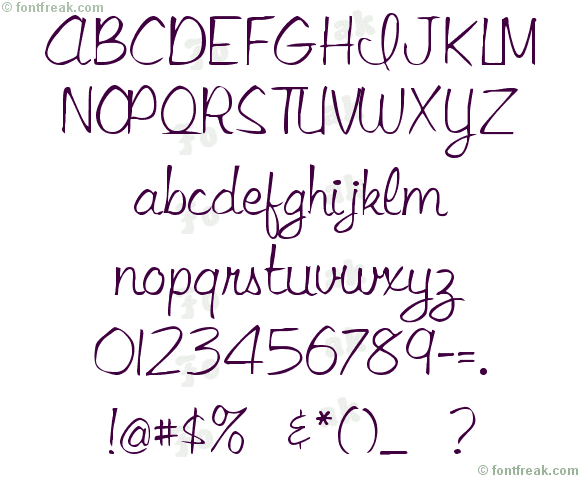
LibbyScript
About Libby Script
Libby Script, designed by Sam Wang, is a beautifully crafted script font that exudes elegance and sophistication. This shareware typeface stands out with its flowing curves and refined strokes, making it an ideal choice for projects that require a touch of grace. The font features a medium stroke weight, which provides a balanced contrast that enhances its readability while maintaining a decorative flair. The spacing is thoughtfully designed to ensure legibility, allowing each letter to breathe and interact harmoniously with its neighbors, creating a seamless reading experience.
Libby Script is perfect for a variety of creative applications. It shines in wedding invitations, where its romantic and whimsical character adds charm to the special occasion. Additionally, it works wonderfully for movie posters, lending an artistic touch that draws attention and evokes emotion. Restaurant menus can benefit from Libby Script’s unique style, enhancing the dining experience by infusing a sense of culinary artistry. It is also well suited for branding projects, particularly for small businesses looking to create a memorable logo that embodies elegance and creativity. Content creators will find Libby Script invaluable for social media graphics, adding a personal touch to their posts.
The target audience for Libby Script includes graphic designers, small business owners, content creators, and anyone seeking to elevate their visual communication with a sophisticated typeface. This font stands out not only for its aesthetic appeal but also for its versatility across diverse projects. With its ability to convey emotions and themes effectively, Libby Script is a must-have addition to any designer’s toolkit. For those interested in exploring its charm, a Libby Script font free download is available, inviting users to experience its beauty firsthand.